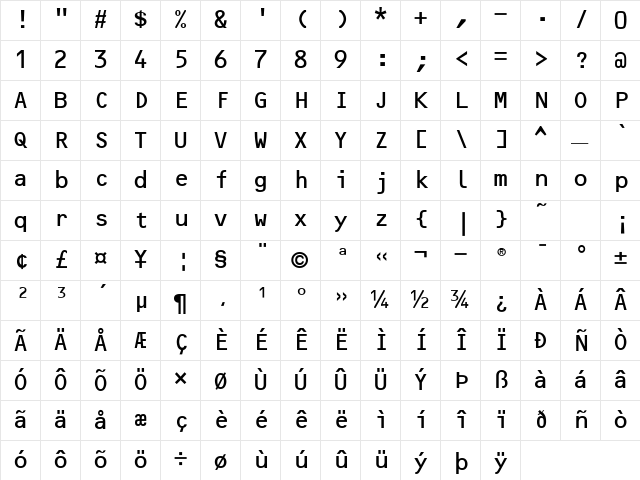
OCRB LT A Regular
Design Context for OCRB LT A
OCRB LT A is a composed and adaptable typeface that performs quietly and consistently across a wide range of design contexts. Its slender proportions lend an understated elegance to any composition.
Pro Tip: Use OCRB LT A in both headline and body roles to test its range before committing to a single application.